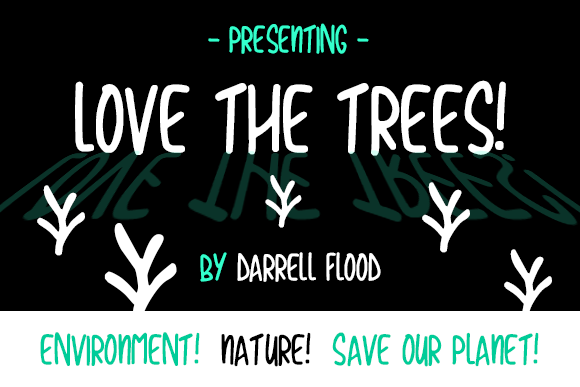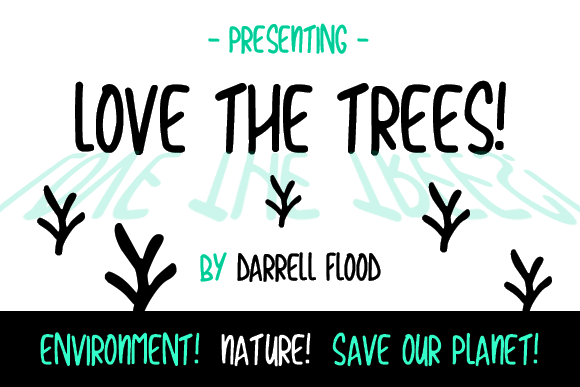
HomeScript FontsLove the Trees Font Script Fonts Love the Trees Font FacebookXPinterestWhatsApp Love the Trees Font Poster 2 About Love the Trees Font Love the Trees is a natural and organic script with an outdoorsy feel. DOWNLOAD ON CREATIVE FABRICAThis font is sold and delivered by Creative Fabrica. Font Canyon may earn a commission if you buy through this link. People also explored Earlson Caps Font Giving God Font Enjoy and Relax Font Exquisite Font Hello Chamia Font Pinglsy Font Ardneran Font Intellecta Ribbons Cute Donut Font 304 0 TagsLove the Trees Font Previous articleFrangkie FontNext articleCMV Polka Dot Font LEAVE A REPLY Cancel reply Comment: Please enter your comment! Name:* Please enter your name here Email:* You have entered an incorrect email address! Please enter your email address here Website: Save my name, email, and website in this browser for the next time I comment. Personal Use Free Bamboomoe Personal Use Free Read more about this font Zero Panzer Personal Use Free Read more about this font Harmony Personal Use Free Read more about this font Castina Personal Use Free Read more about this font BLOG Best Fonts for YouTube Videos: Make Your Thumbnails Stand Out Best Fonts for YouTube Videos: Make Your Thumbnails Stand Out Choosing the right font can make a massive difference in how your YouTube videos perform.... How to Cut Any Font on Cricut: Convert a Font to SVG (Free) Best Fonts for T-Shirt Design – Top 2025 Picks Top 10 Handwritten Fonts That Elevate Your Designs